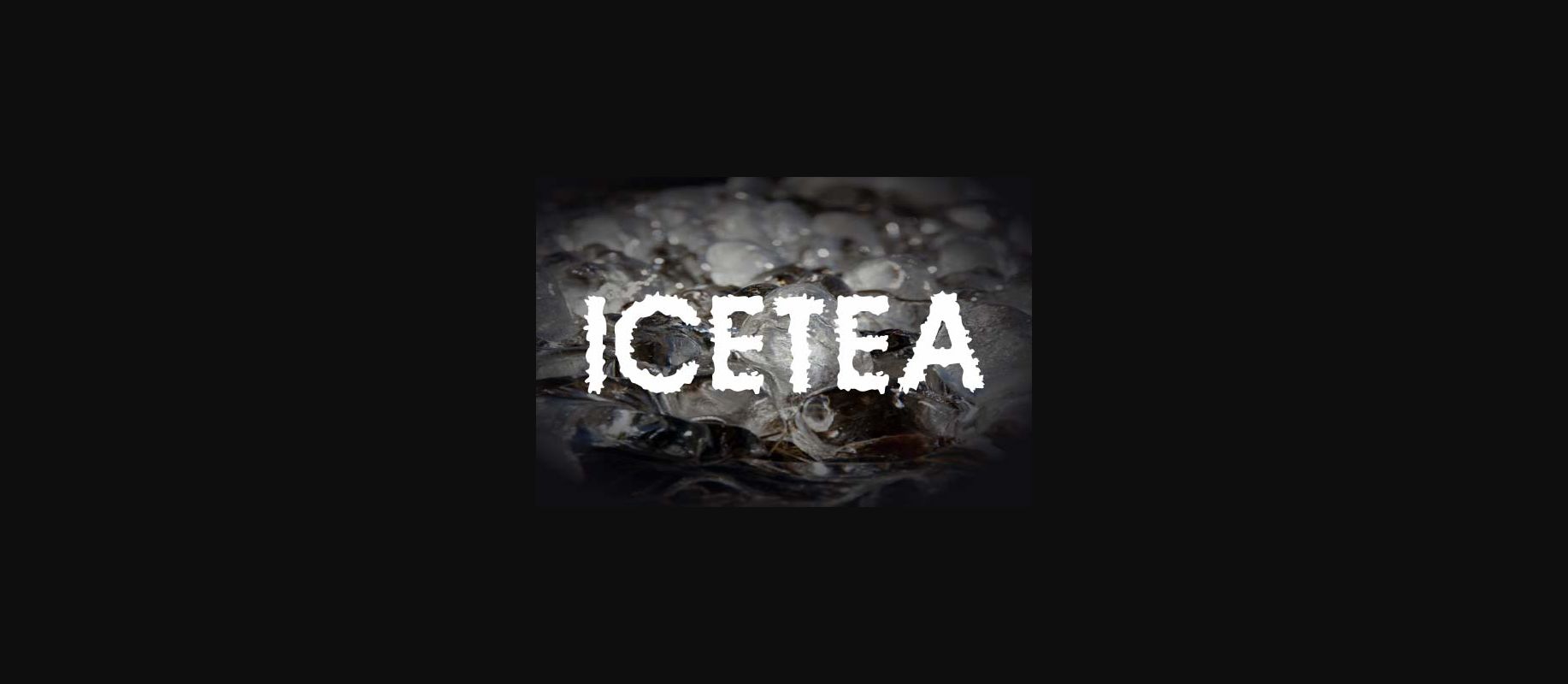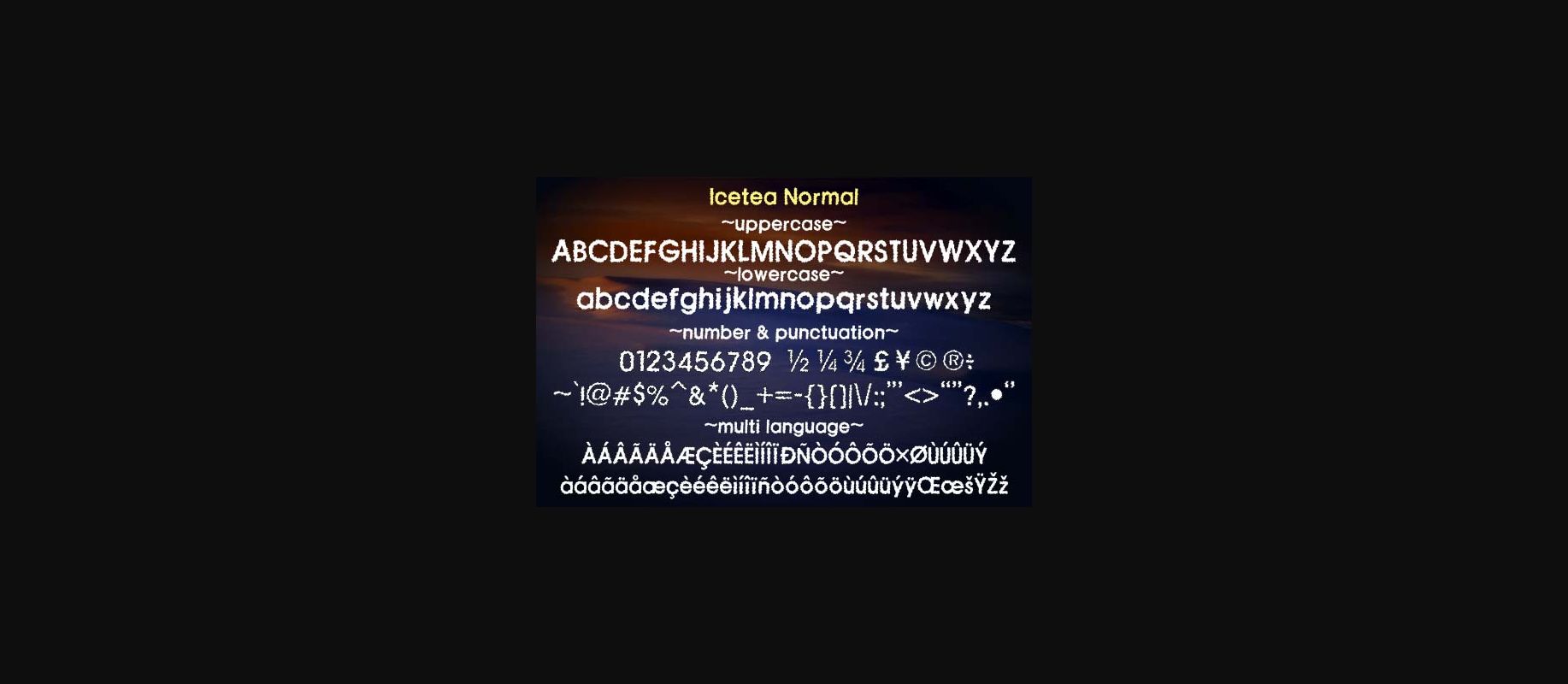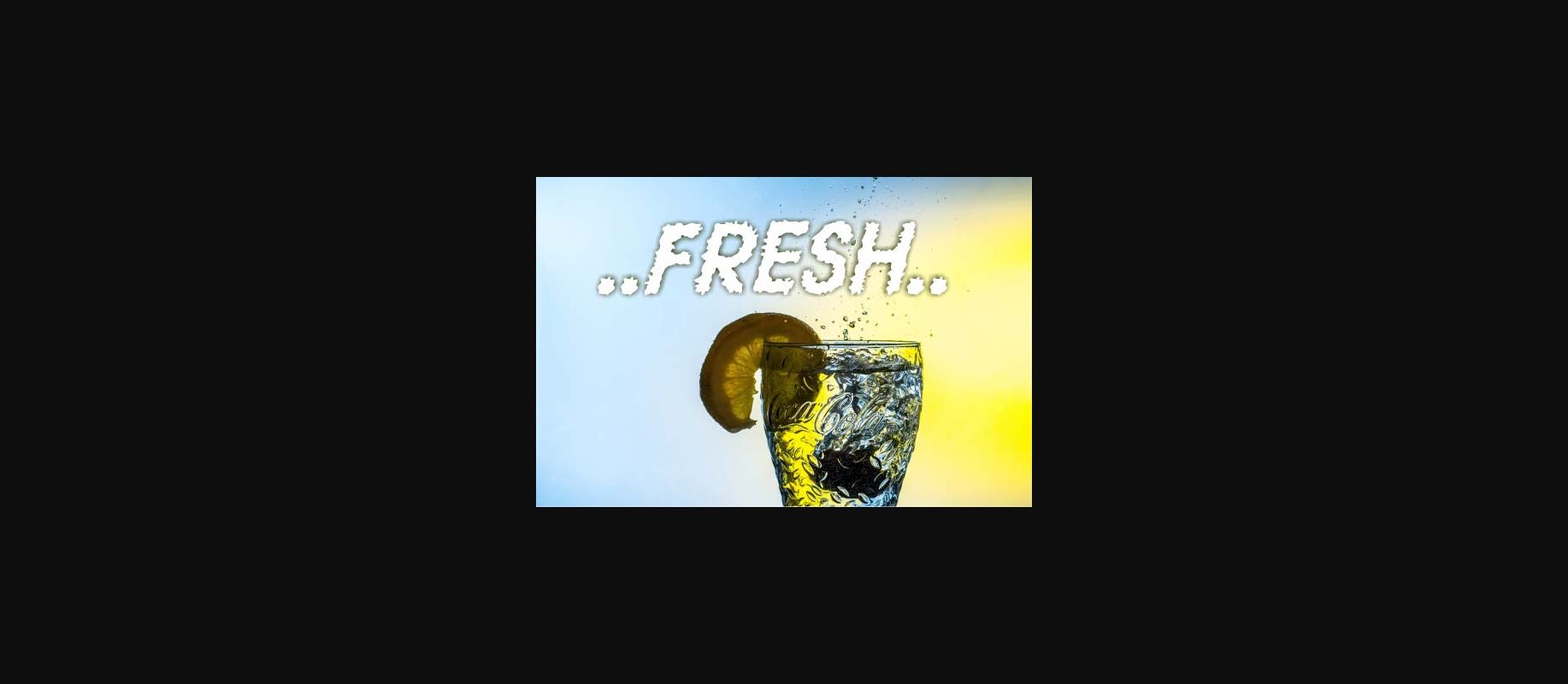
About Icetea Font
Icetea is a decorative font that can give all your designs a relaxed character. This typeface comes in 2 styles, perfect for product designs like drinks product and good for cool and cold designs. Suitable for a winter design characters.